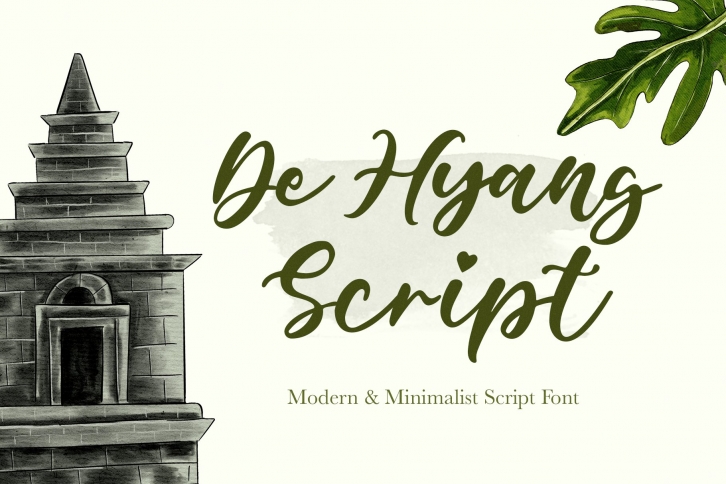
De Hyang Script is a great font that was designed by Wacaksara Co. Imagine the amount of combinations you can create using this font! The archive is 17.35 MB and it was released on March 14, 2022. De Hyang Script looks beautiful on wedding invitations, greeting cards, logos, posters, labels, t-shirt designs, logos, business cards and is perfect for use in ink or watercolor works, fashion, magazines, packaging and food menus, children's books and more!